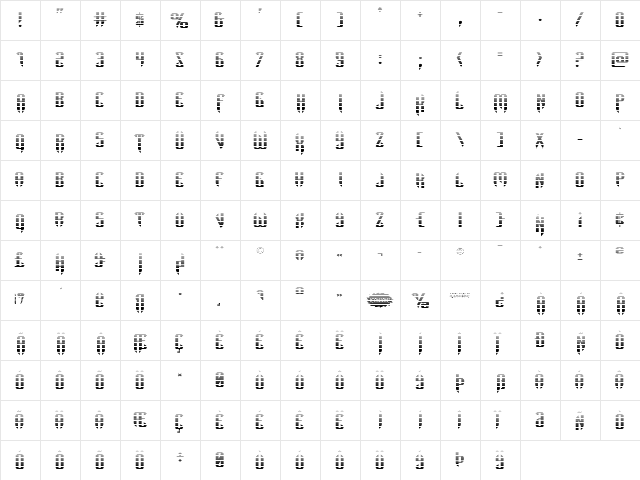
The Immortal Gradient Regular
Design Context for The Immortal Gradient Typeface
The Immortal Gradient takes a measured approach to typography — its balanced proportions and neutral character make it a reliable workhorse for both digital and print work.